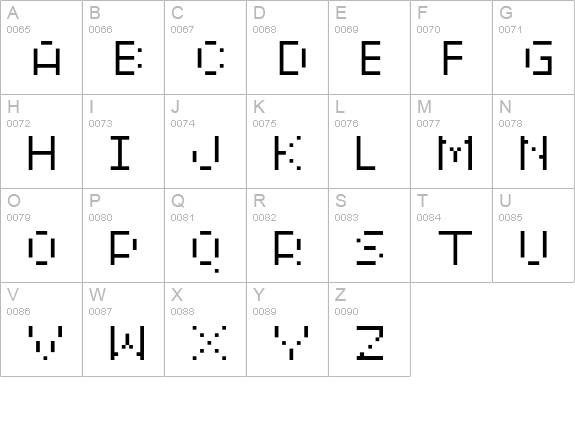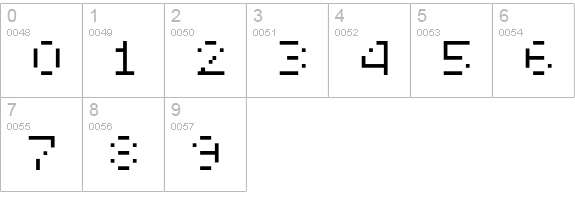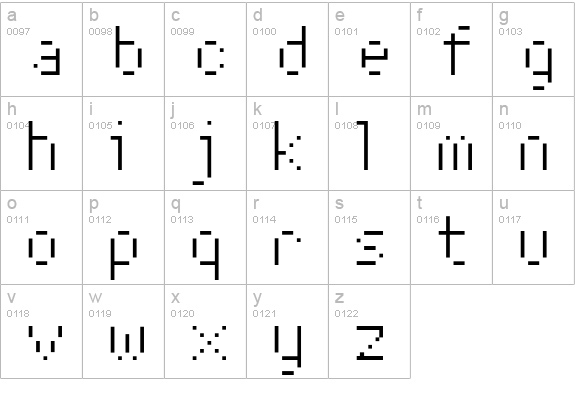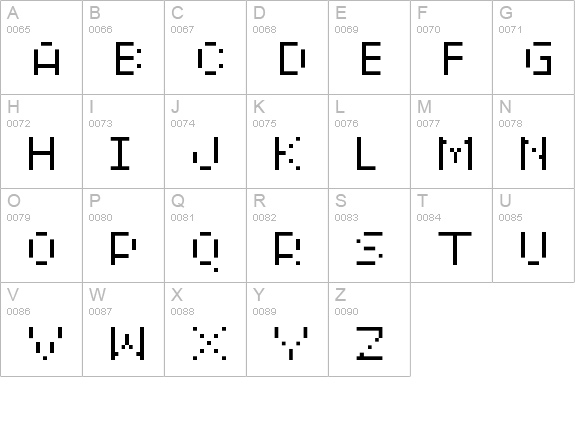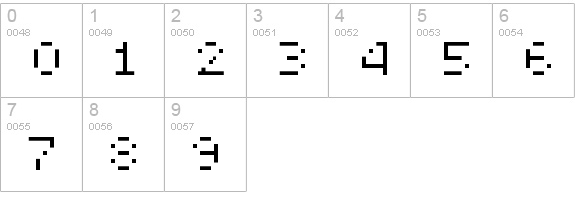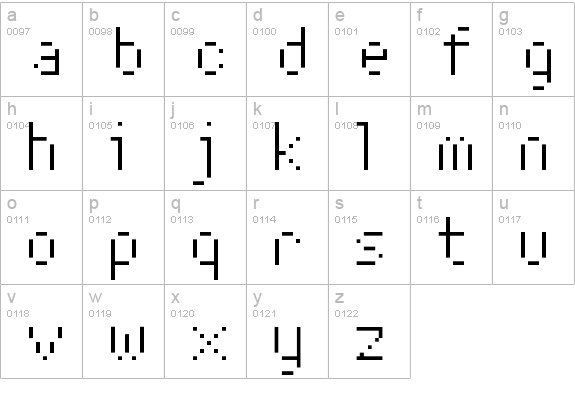
XERXES-ELEVENALT Font Details
Introducing XERXES-ELEVENALT font - a stunning display typeface that combines elegance with modernity. This font boasts sharp lines and a unique style that is sure to make your designs stand out. With its sleek and sophisticated appearance, XERXES-ELEVENALT is perfect for various projects, from branding to editorial design. The best part? XERXES-ELEVENALT font is completely free to download at FontsMarket.com. This means you can add this exceptional font to your collection without breaking the bank. Whether you're a designer looking to spruce up your projects or a creative looking for a fresh new font to experiment with, XERXES-ELEVENALT is the perfect choice. Download XERXES-ELEVENALT font today and elevate your designs with its striking aesthetics and contemporary charm.